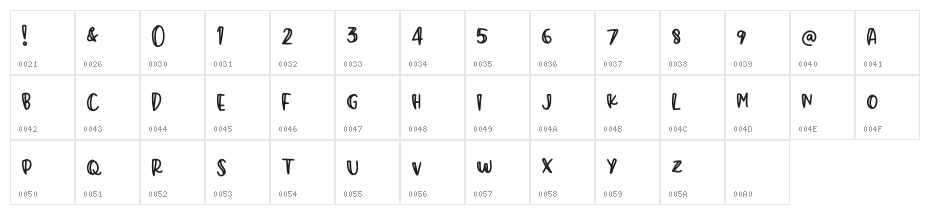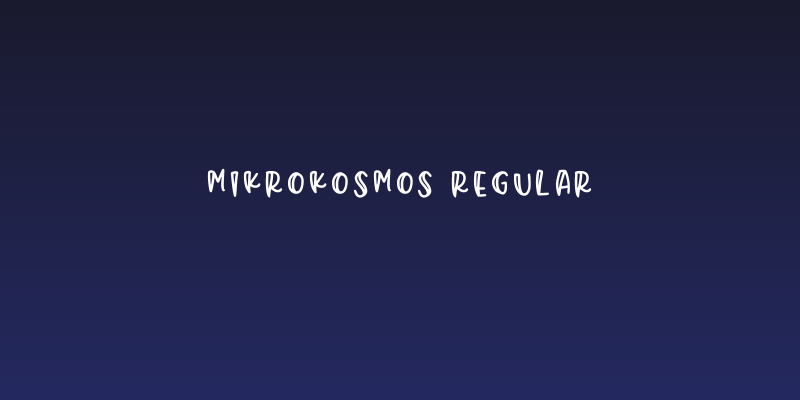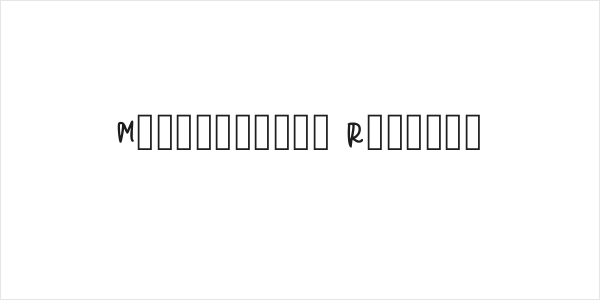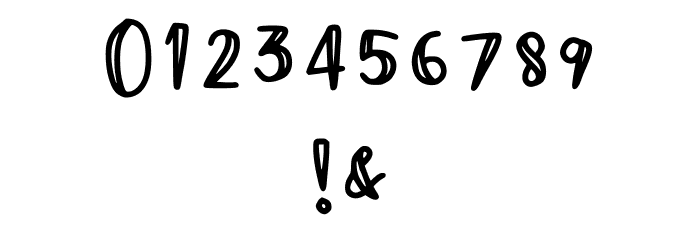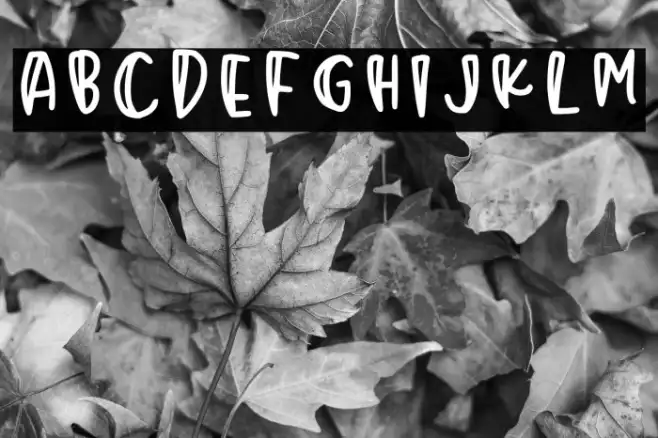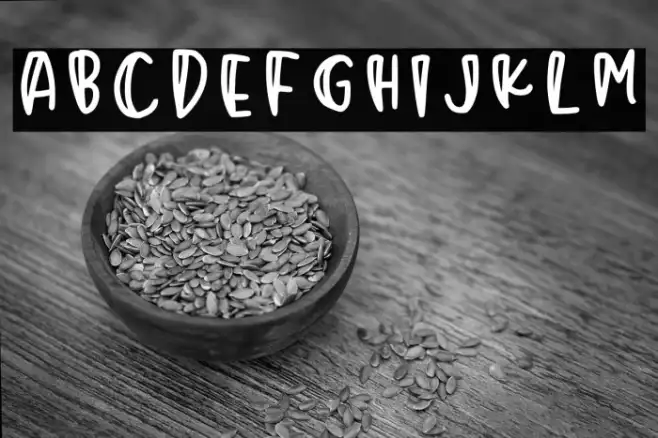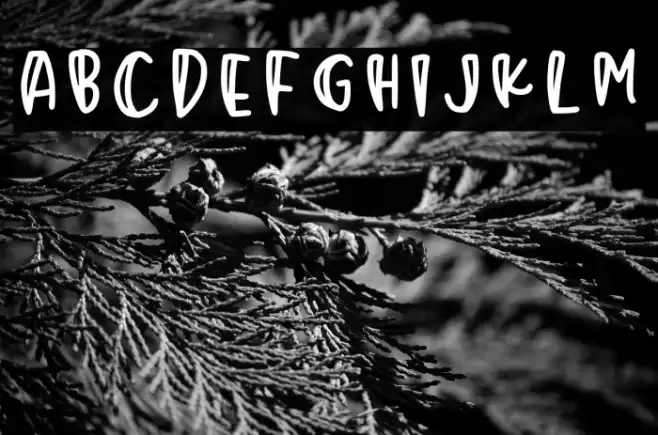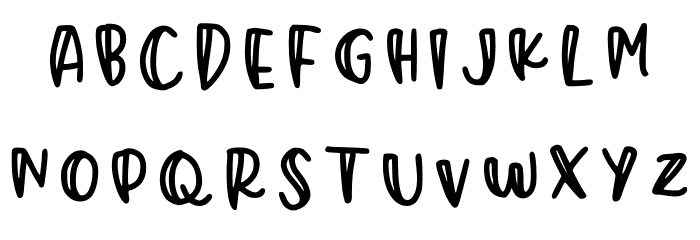
Mikrokosmos Regular Font
Mikrokosmos Regular Description
This font features a playful and casual handwritten style, characterized by its smooth curves and slightly irregular shapes. The letters are bold and rounded, giving a friendly and approachable feel. The uppercase and lowercase letters maintain a consistent style, with a slight slant that adds to the informal aesthetic. Numbers and special characters are designed to match the overall look, ensuring a cohesive appearance across different uses. The font's design is versatile, making it suitable for a variety of creative projects.
| Proposed Projects | Ideal for greeting cards, children's books, playful branding, and social media graphics. |